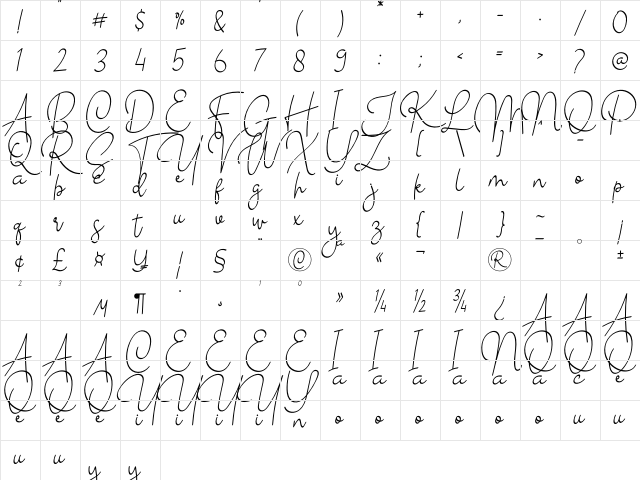
The School Regular Free Font
The School Regular
Foundry: Airotype Design
Designer: Rofiq Soelta
Design Context for The School
The School is a composed and adaptable typeface that performs quietly and consistently across a wide range of design contexts.